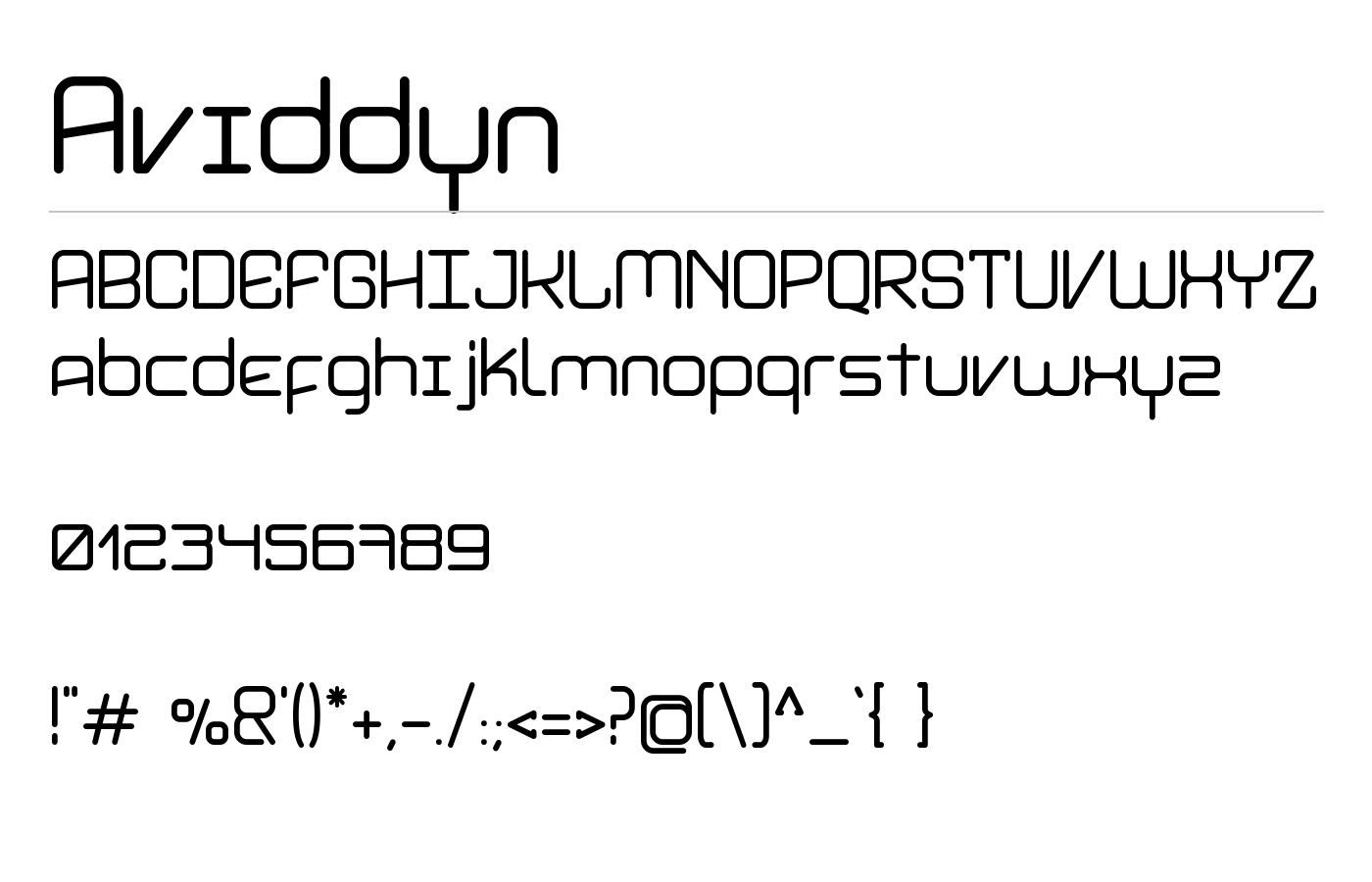
Aviddyn is a modern sans serif font with a sleek, geometric design featuring clean, monoline strokes and rounded corners that give it a friendly yet contemporary feel. Its open letterforms and consistent stroke weight make it highly legible, suited for tech-forward branding, digital interfaces, and creative headlines where a futuristic but approachable look is desired. Ideal for projects seeking a balance of innovation and clarity, Aviddyn works well across logos, websites, and editorial use.
Aviddyn Font
About Aviddyn Font